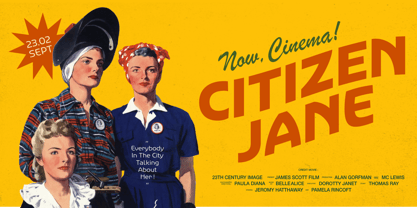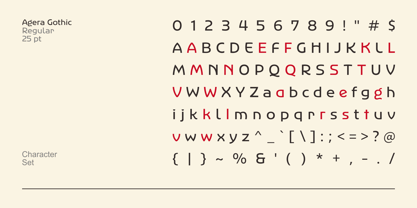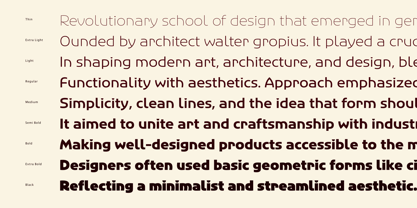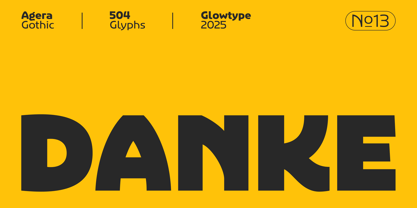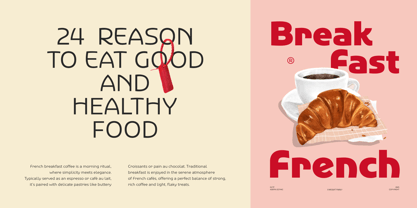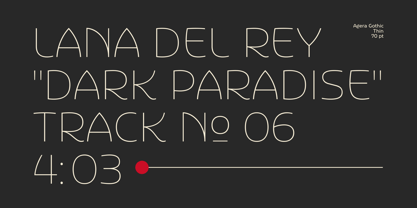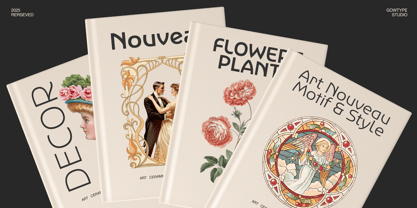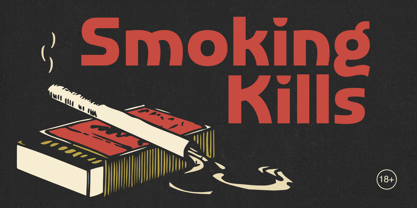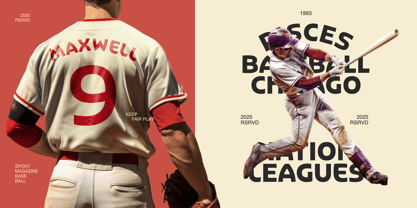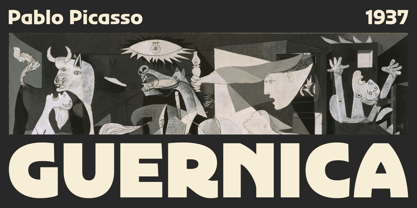
Agera Gothic
The Agera Gothic Font Family was designed by Fachrizal Yusuf and published by Glowtype. Agera Gothic contains 9 styles and family package options.
Agera Gothic: A Timeless Fusion of Classic and Contemporary Styles
Agera Gothic is a sophisticated typeface that draws inspiration from Advertisers Gothic (1917) by Robert Wiebking, blending historical elegance with modern sensibilities. This font seamlessly merges elements of classic typography,
Art Nouveau, Avant-Garde, and Postmodern design, resulting in a unique aesthetic that is both timeless and versatile. Its carefully crafted letterforms exhibit a harmonious balance between tradition and innovation, making it an excellent choice for designers seeking a refined yet contemporary touch.
With a comprehensive family ranging from Thin to Black, Agera Gothic offers exceptional flexibility in its applications. Whether used in bold headlines or delicate typographic compositions, its distinct character ensures readability and visual impact across various contexts. The varying weights allow for dynamic contrasts, giving designers the freedom to experiment with typography in a way that enhances their creative expression.
Agera Gothic is ideal for advertising, display purposes, posters, magazines, book covers, and many other design applications that require a striking yet sophisticated typographic presence. Its fusion of artistic heritage and modern adaptability makes it a valuable tool for brands and creatives who seek to make a lasting impression. Whether for print or digital media, Agera Gothic elevates any project with its distinctive charm and timeless appeal.